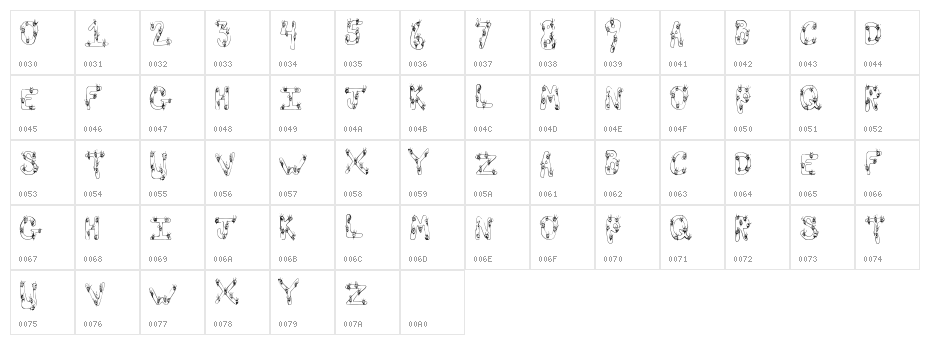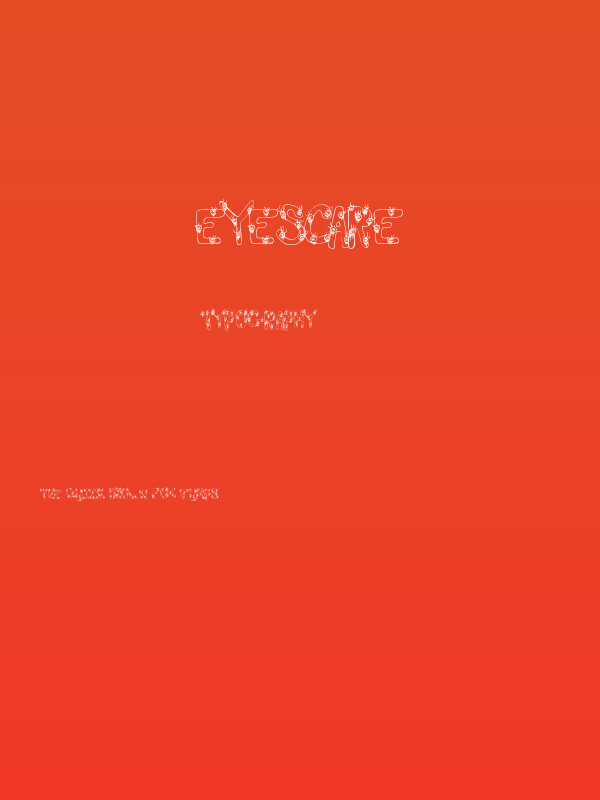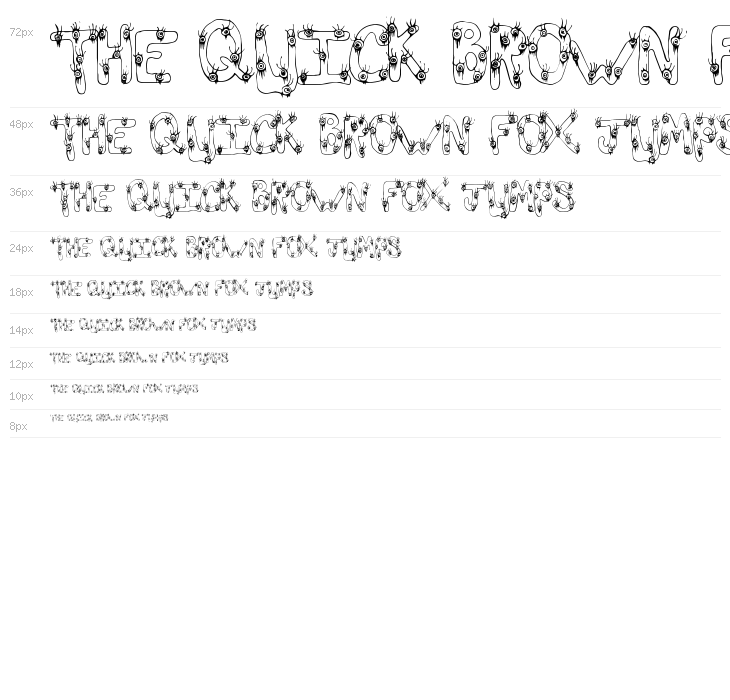
EyeScare Font
✎ Decorative
| Estilo general | Playful, Whimsical |
| Proyectos propuestos | Ideal for children's books, Halloween designs, playful branding, and eye-catching posters. |